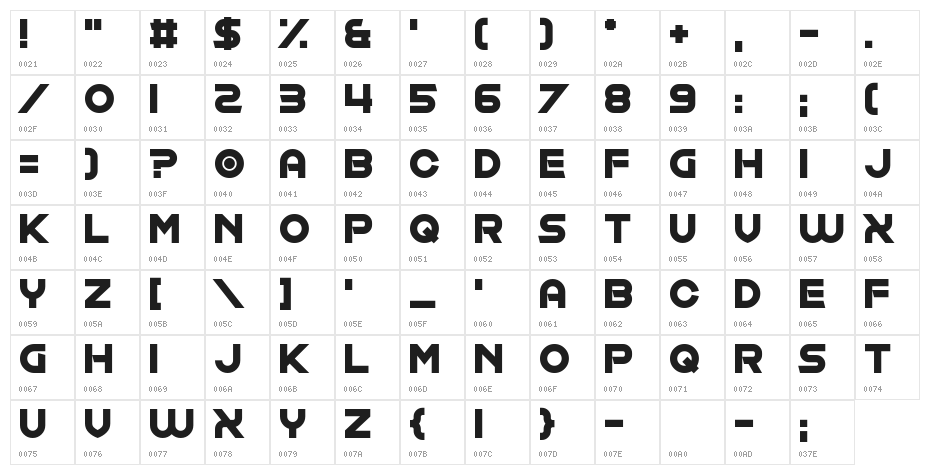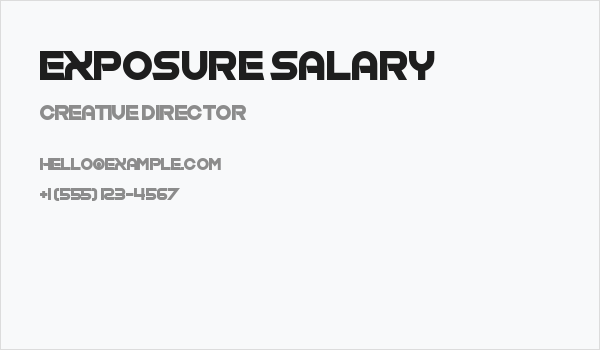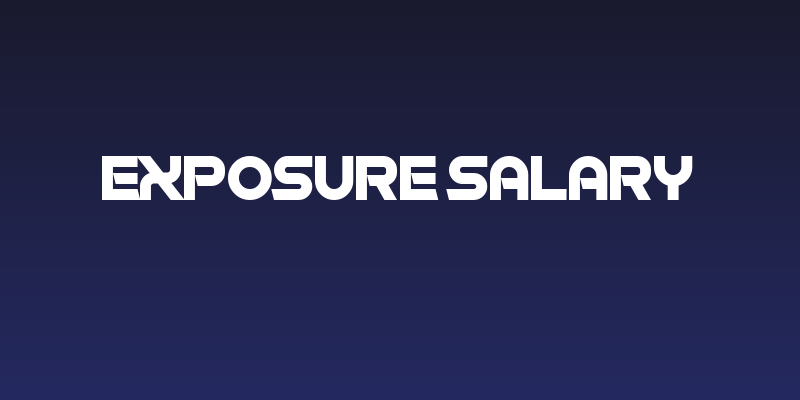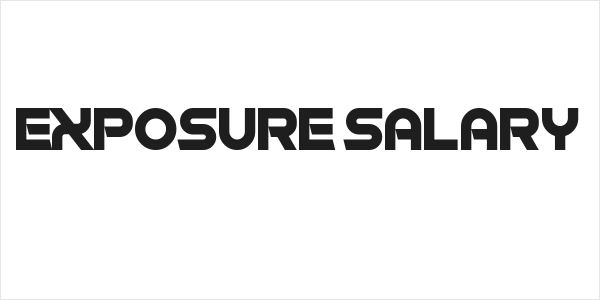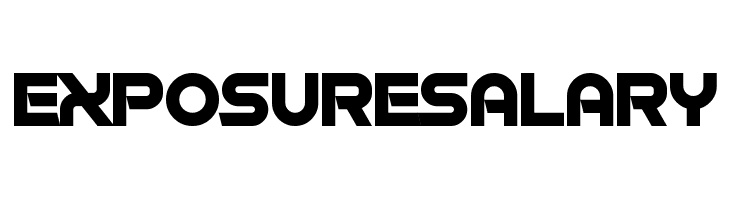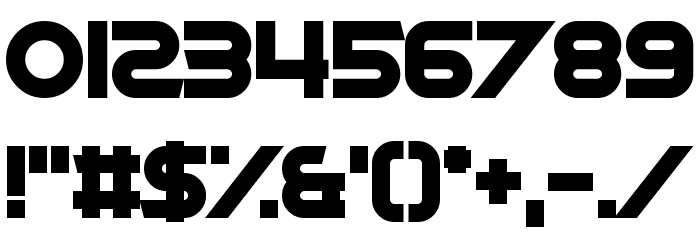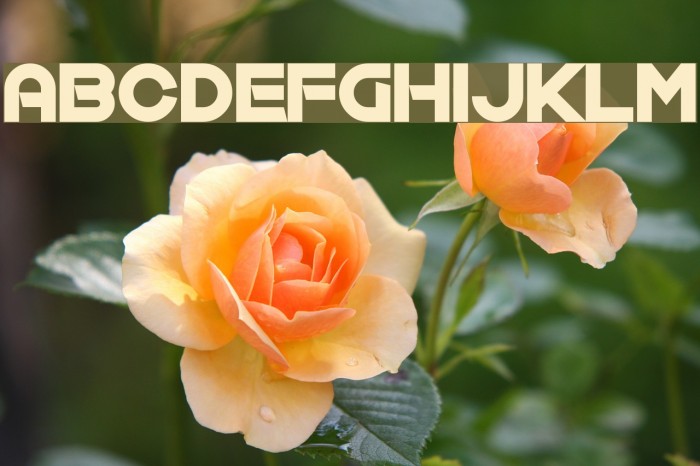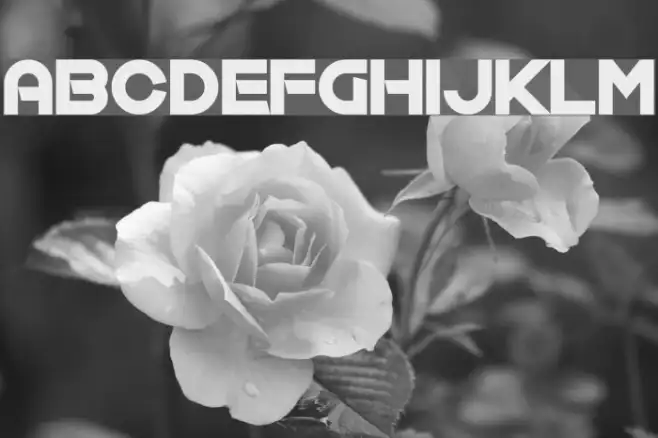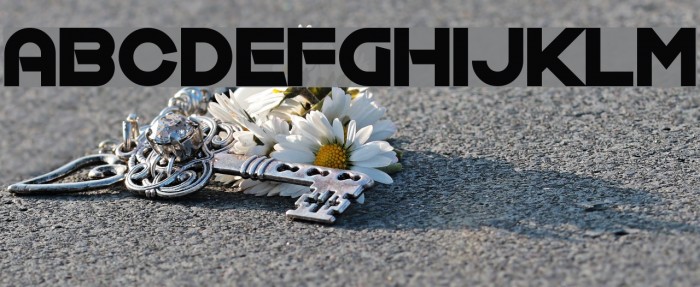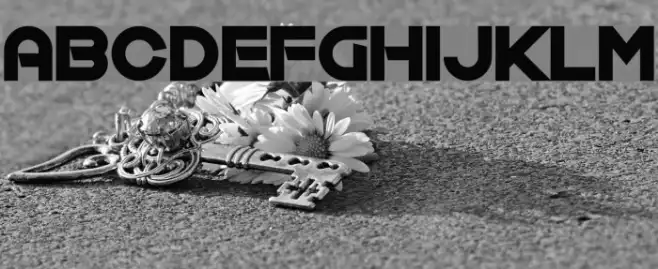
Exposure Salary Font
Exposure Salary Description
This font features a bold and geometric design, characterized by its strong, angular lines and modern aesthetic. The characters are constructed with a consistent thickness, giving them a uniform appearance. The uppercase letters are particularly striking, with sharp edges and a futuristic feel. The numerals and special characters maintain the same bold style, ensuring a cohesive look across all glyphs. This font's design is both eye-catching and versatile, making it suitable for a variety of creative applications.
| Proposed Projects | Ideal for branding, posters, headlines, and any project requiring a strong visual impact. |